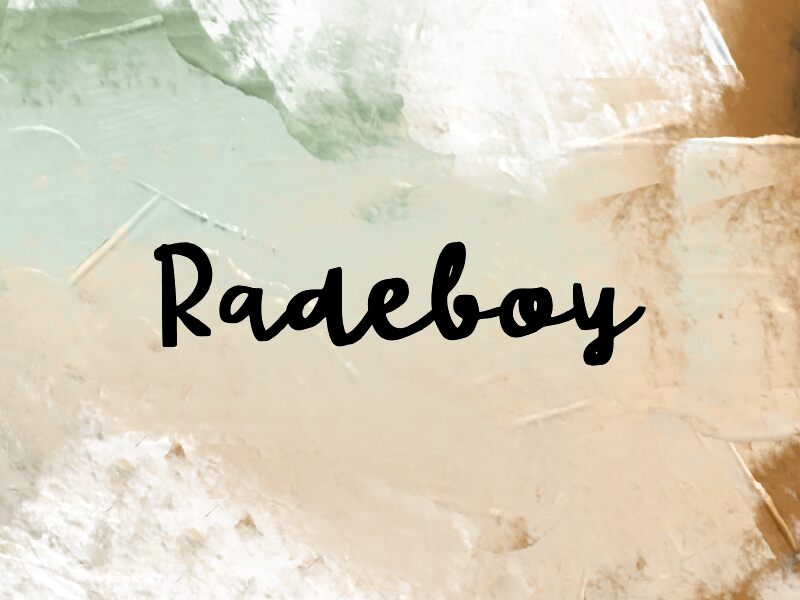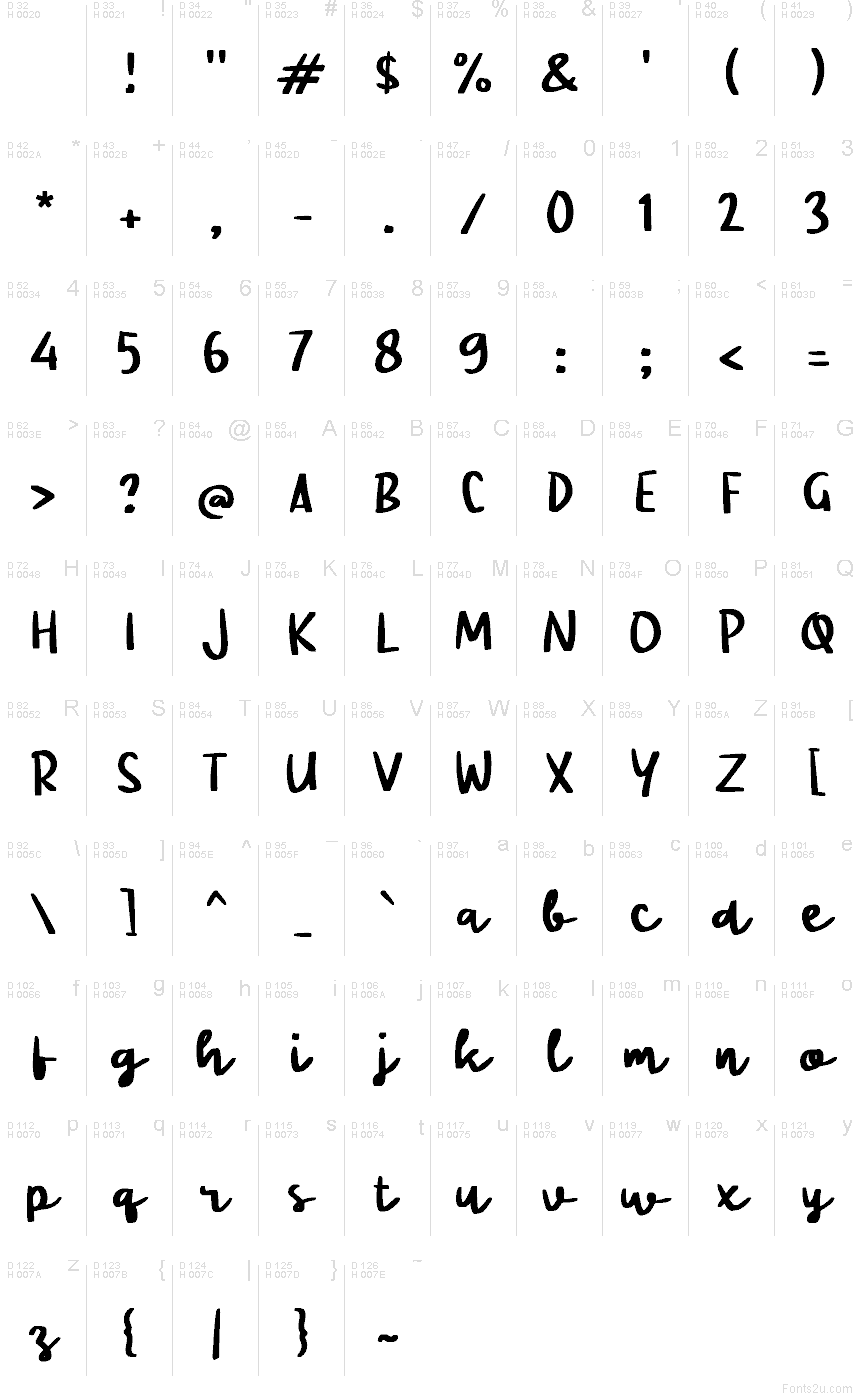
Radeboy by Wep is a free brush font driven by a loose handwritten rhythm, where rounded strokes rise and dip like quick marker lettering rather than polished calligraphy. That steady swing gives the whole design a relaxed, slightly bouncy pace, with enough variation in each stroke to keep it feeling drawn by hand.
It makes the most sense on cafe logos, product labels, social media graphics, poster headlines, and casual packaging where that easy brush movement can do the talking. Short titles and brand names especially benefit from its rolling connections and soft curves, which give lettering a friendly, informal pull without turning rough or messy.
Radeboy